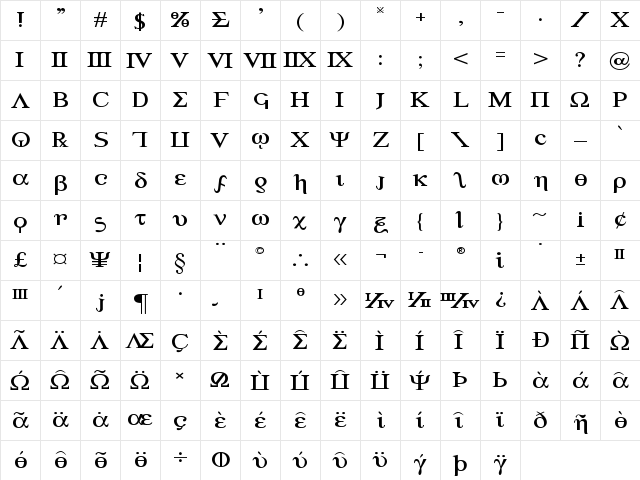
Achilles Expanded Expanded
Design Context for Achilles Expanded Typeface
Achilles Expanded takes a measured approach to typography — its balanced proportions and neutral character make it a reliable workhorse for both digital and print work.